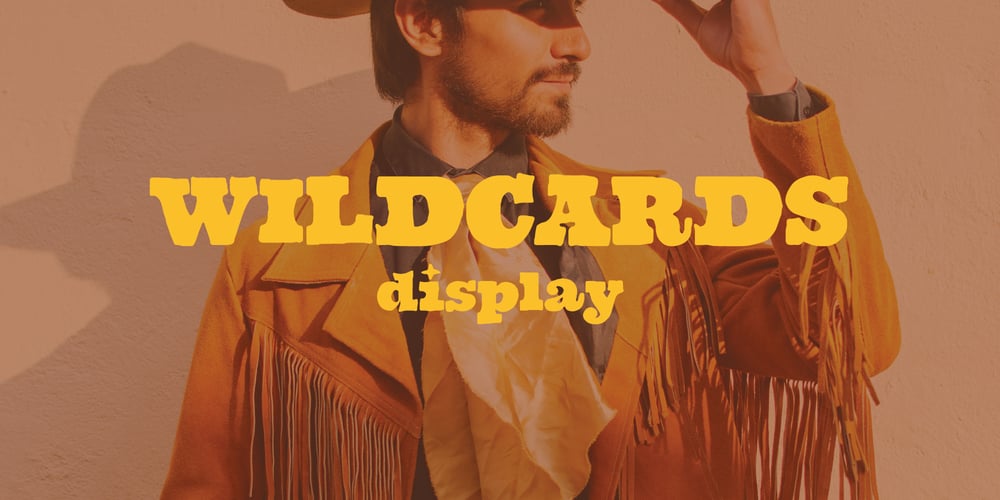
Wildcards Font Family was designed by Kait Kenobi and published by Midnight Grim. Wildcards contains 1 styles and family package options. Wildcards is here to help you create the most show-stoppin’, boot stompin’ designs!Inspired by the wild west paired with a unique modern flair, this versatile slab serif typeface will hit all the bullseyes in your projects. From logos to posters, branding to branding (lol), Wildcards has it all.Additional glyphs included to add some flair to your creations.